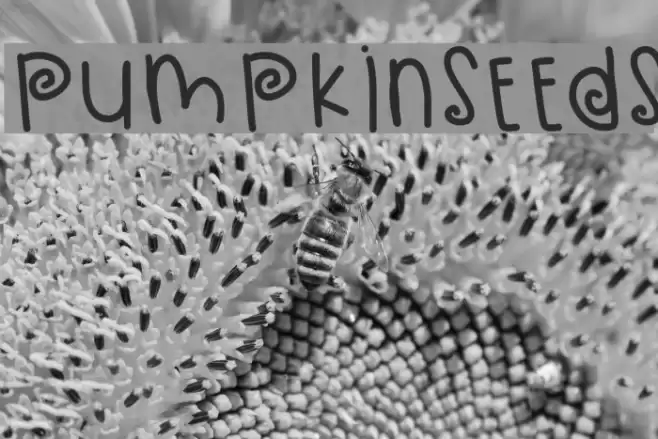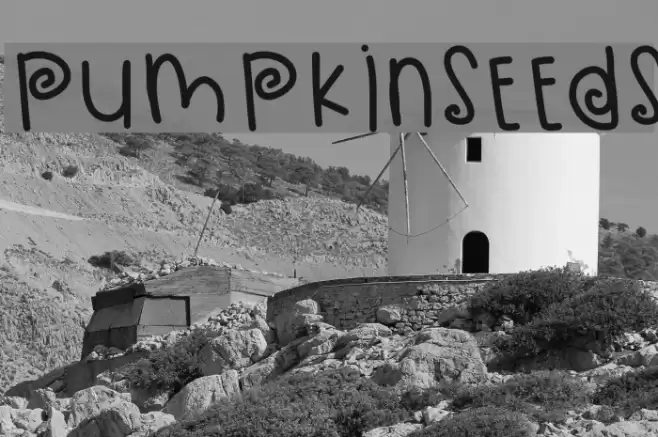
PumpkinSeeds Font
PumpkinSeeds Description
This playful and whimsical font features a hand-drawn style with a quirky, informal appearance. The characters are slightly irregular, adding to the charm and uniqueness of the design. The uppercase and lowercase letters have a consistent flow, with some letters incorporating fun, unexpected twists, such as the spiral in the letter 'P'. The numbers and special characters maintain the same lively aesthetic, making this font suitable for creative and casual projects. Its overall look is reminiscent of doodles or handwriting, giving it a friendly and approachable feel.
A playful, hand-drawn font with a whimsical and quirky style from Uncategorized fonts.
- Proposed Projects: Ideal for children's books, greeting cards, playful branding, and creative posters.